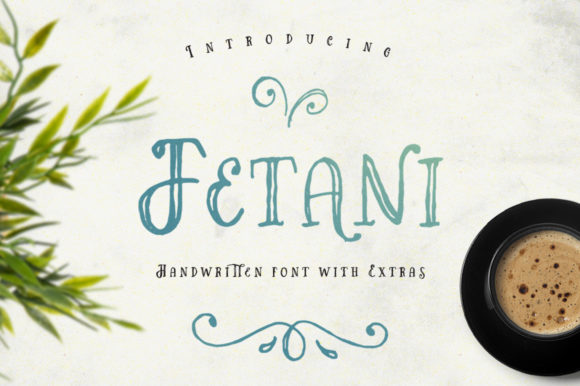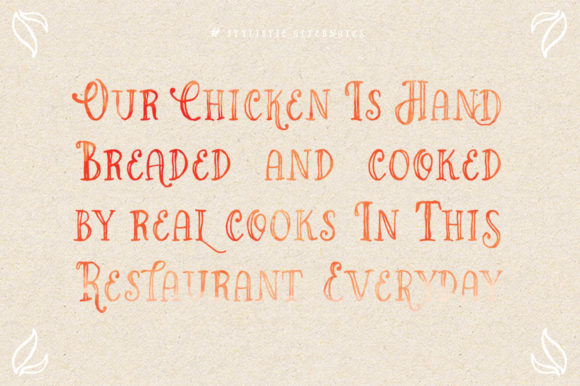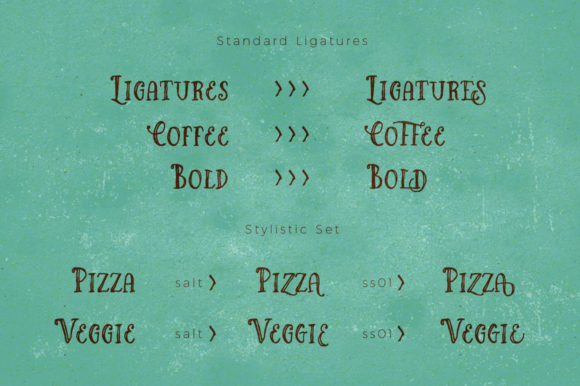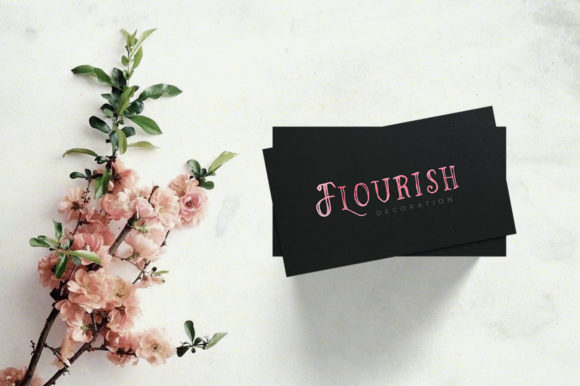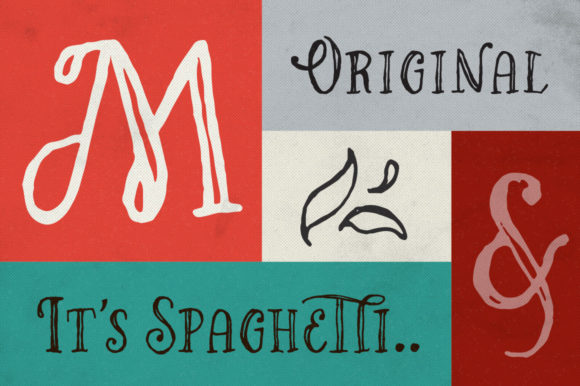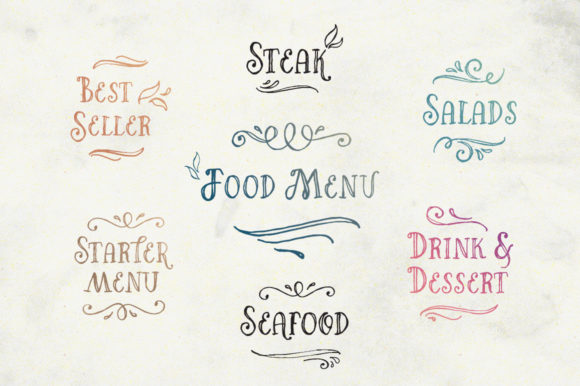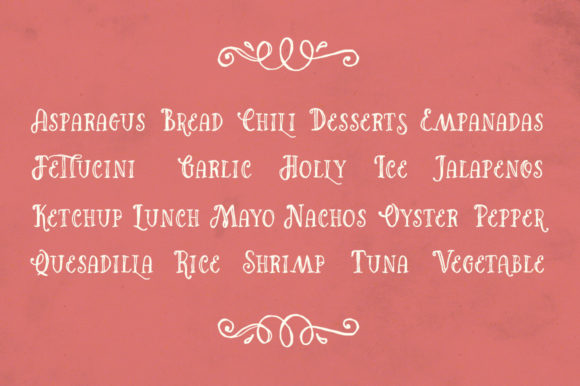
About Fetani Font
Fetani is an elegant and classic handwritten font with extras. Use Fetani to add a playful, fun, fresh, and trendy feel to your designs. Suitable for logo, branding, quotes, headlines, advertising, posters design, book cover, prints, social media, merchandise, stationery, packaging, and much more!